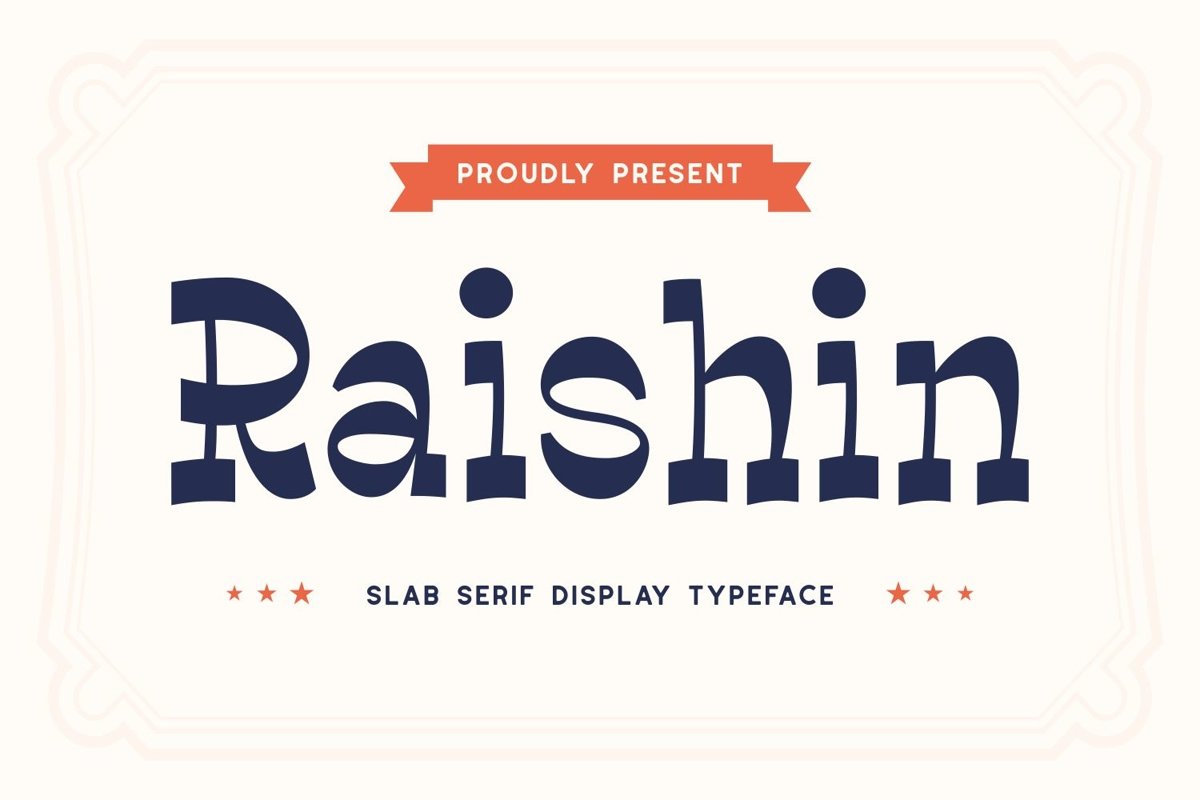
Raishin is a unique slab serif display with lightest weight contrast. This personality is confident and contemporary palette of letters. It matches applies in some designs such as the logotype, brand, packaging, quotes, poster, t-shirt, book, invitation and more custom design. The features uppercase, lowercase, numeral, punctuation & symbol, multilingual support, PUA encoded (fully accessible without additional design software).